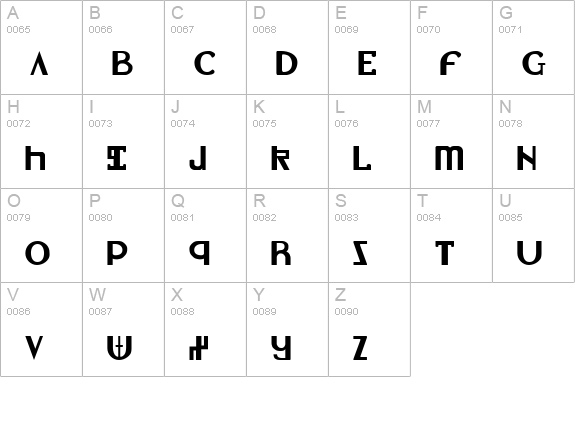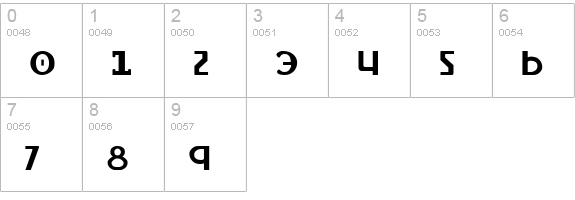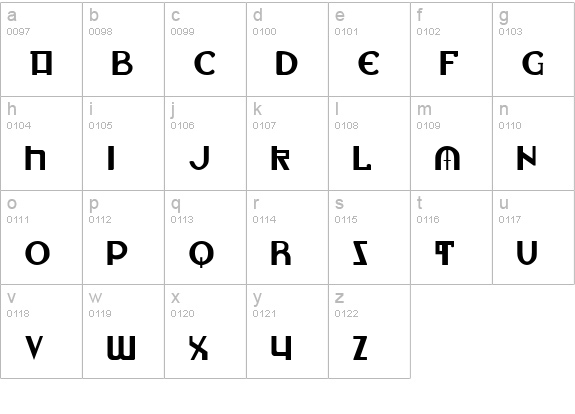
Lionheart Font Details
Introducing Lionheart font, a majestic and bold typeface that exudes strength, power, and elegance. With its intricate details and commanding presence, Lionheart is the perfect choice for projects that require a touch of regal sophistication. This stunning font is not only visually striking but also versatile, making it suitable for a wide range of design applications, from branding to editorial design. Whether you're working on a logo, poster, packaging, or website, Lionheart will make your designs stand out from the crowd. Best of all, Lionheart font is available for free download at FontsMarket.com, where you can easily access this premium font and elevate your design projects with its timeless appeal. Don't miss out on the opportunity to add Lionheart to your font collection and unleash its powerful presence in your creative endeavors.